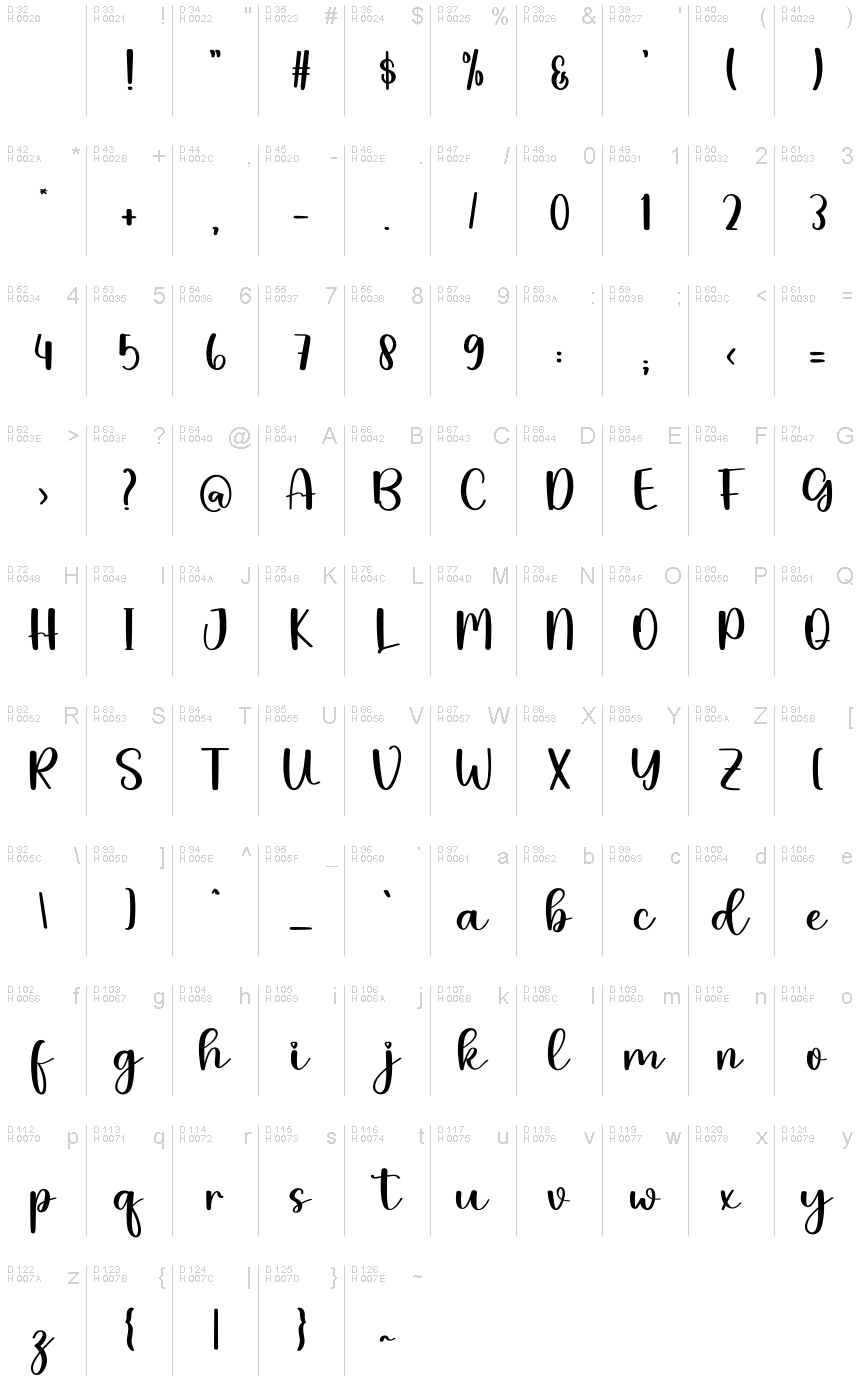
Juliete
Juliete by PiPi Creative is a charming handwritten font that exudes elegance and warmth. With its whimsical curves and delicate heart accents, Juliete captures an effortlessly romantic vibe that's perfect for adding a personal touch to any design. The fluid strokes create a natural flow, making it ideal for projects that aim to convey sincerity and creativity.
Perfectly suited for wedding invitations, personalized stationery, or heartfelt branding materials, Juliete brings a unique flair to every application. Its distinct style stands out in any setting where intimacy and artistry are paramount. Whether used sparingly for emphasis or as the main typeface in a project, Juliete’s versatile appeal is bound to make an unforgettable impression.